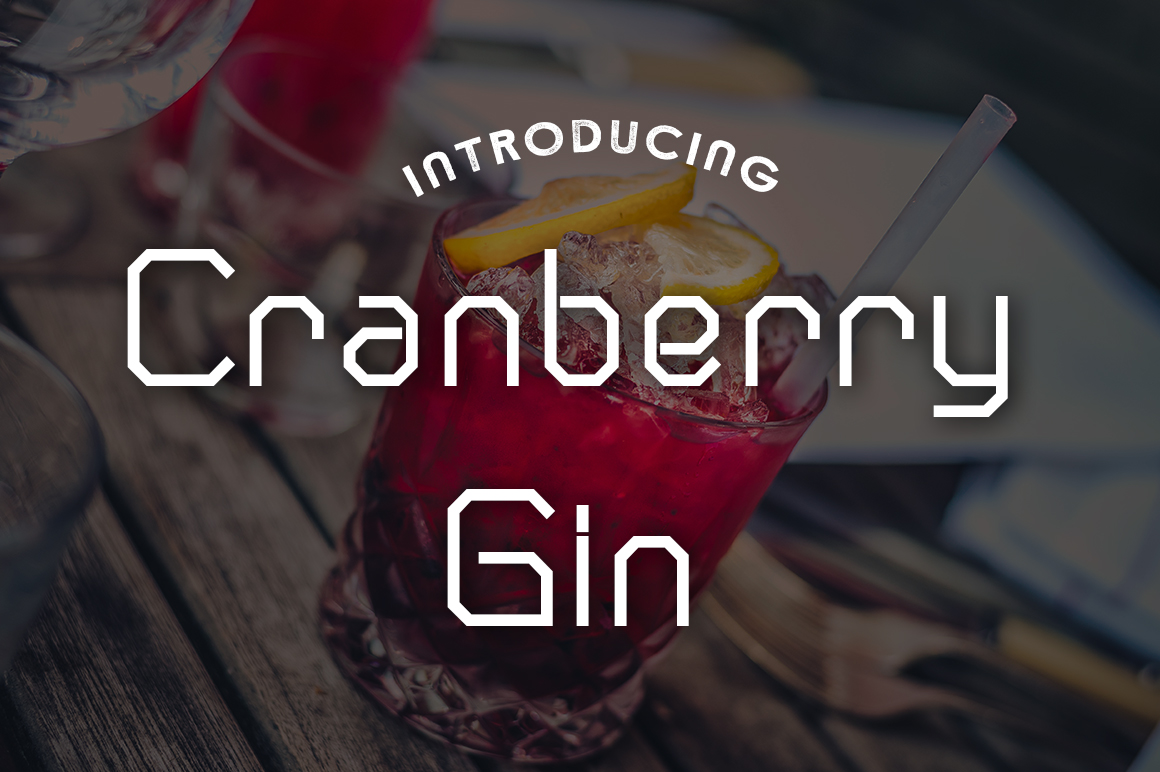
Personal Use Free Cranberry Gin 0 215 FacebookTwitterPinterestWhatsApp 1 of 1 About Cranberry Gin Font Cranberry Gin is an octagonal, tech-oriented sans serif font offered for free from Typodermic. This free square sans font is ideal for a wide range of modern and digitally oriented designs. DOWNLOAD NOW